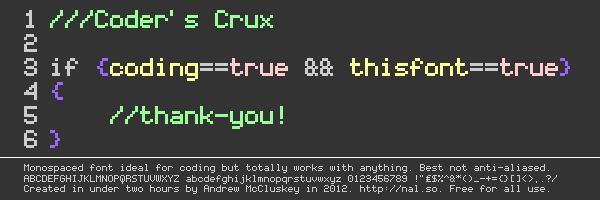
Font name: | Coder's Crux |
Coder's Crux is a fastly-made (sub-2 hours) font designed for coding. It's pixellated and monospaced, and works best at smaller point sizes. When coding I tend to prefer the text be smaller so more fits on the screen, which is why I went with that for this. Though it's designed for coding, you are welcome to use it for any purpose free of charge, including commercial use. As with all previous fonts, crediting me for its use is not a requirement but I do appreciate it. If you do like the font or get some use out of it, an email letting me know of how you used it or even a small donation will slap a smile across my face. Again, none of that's required! :) |